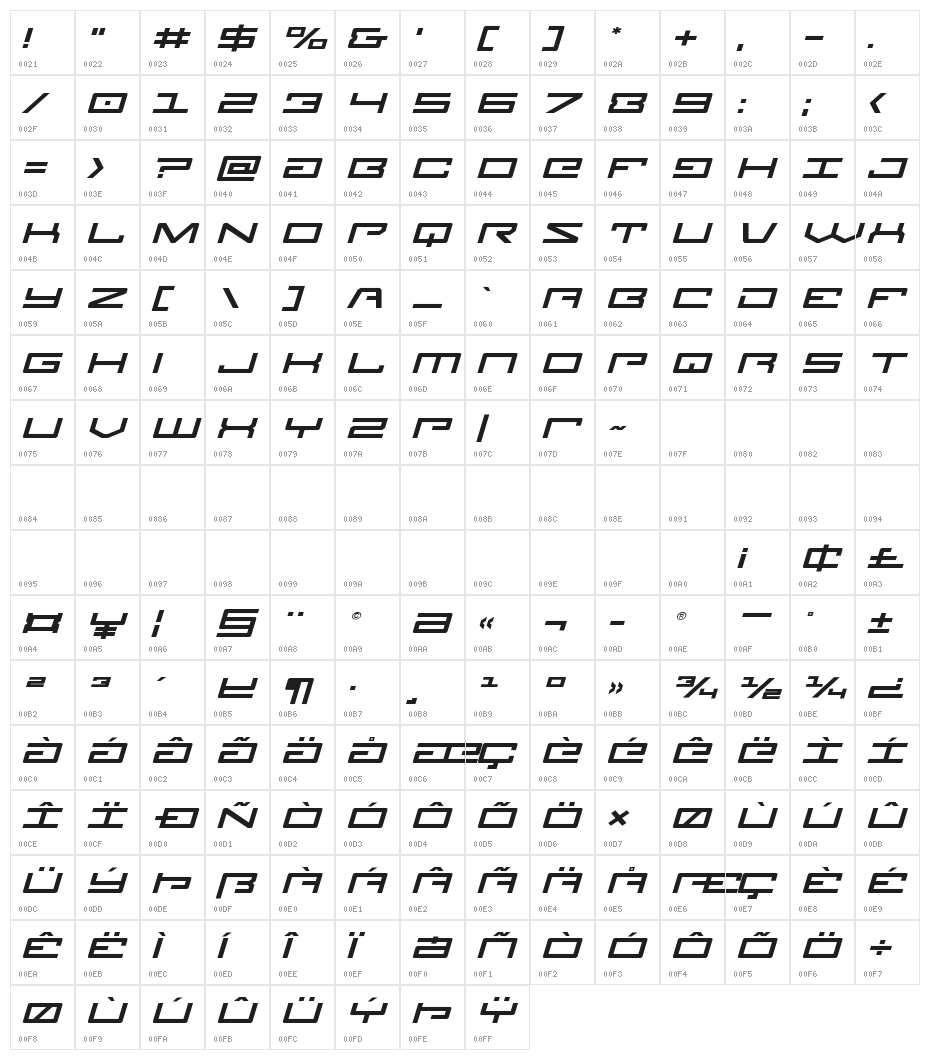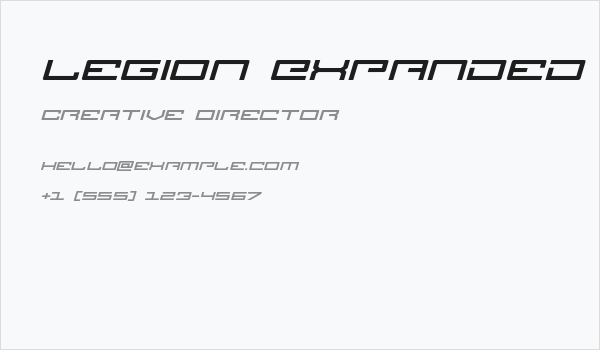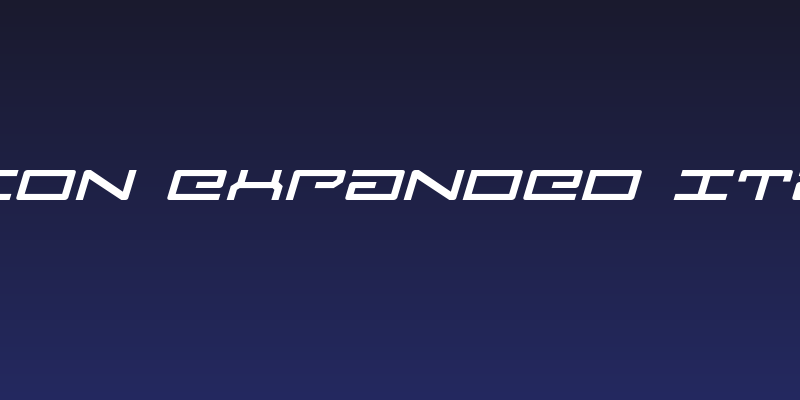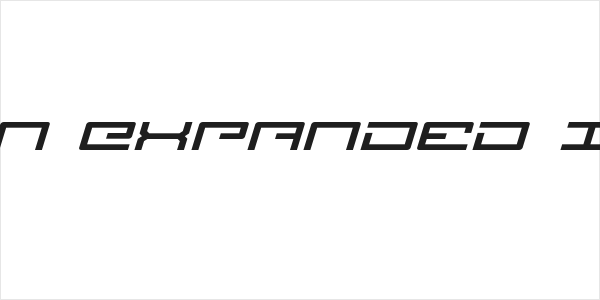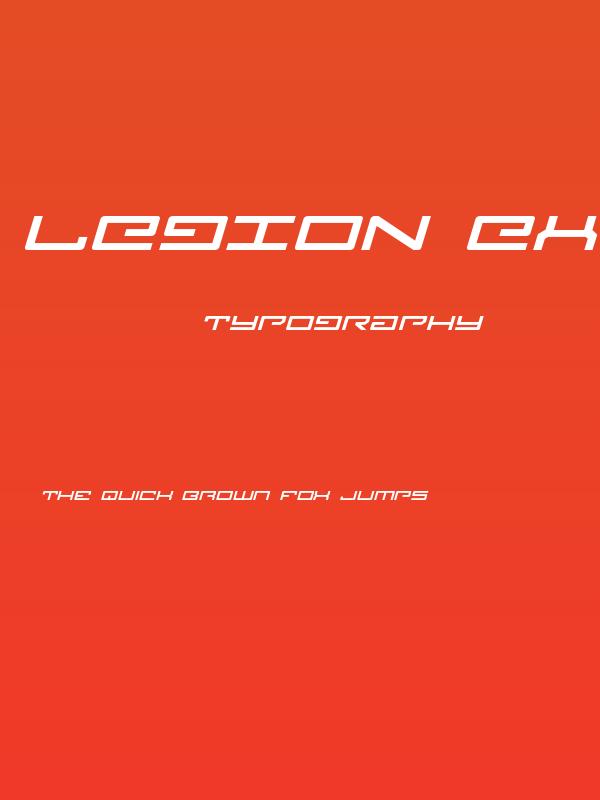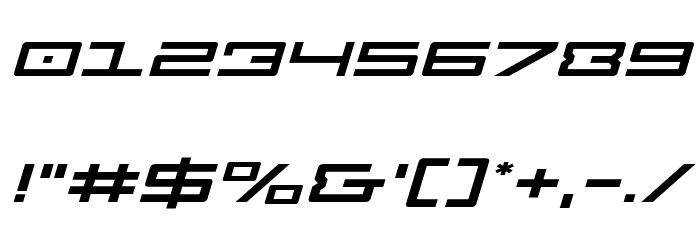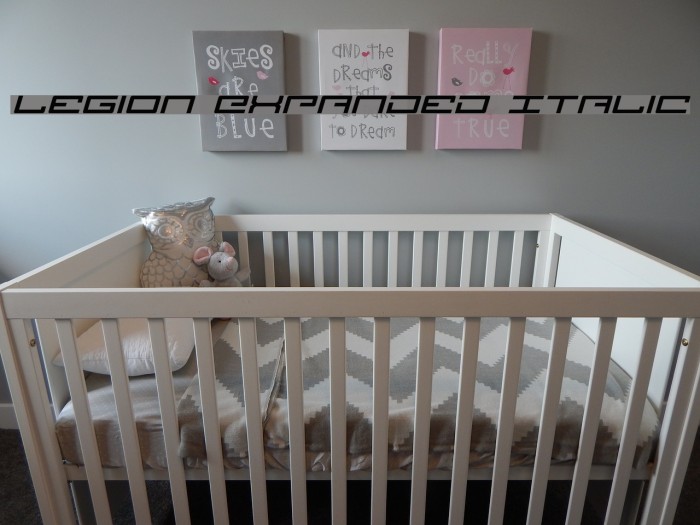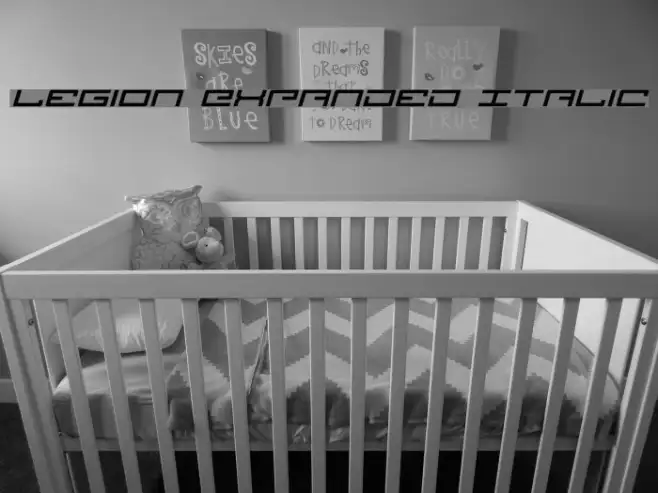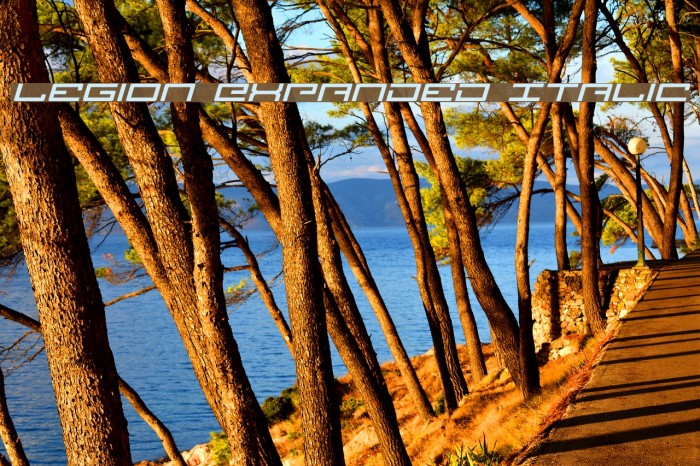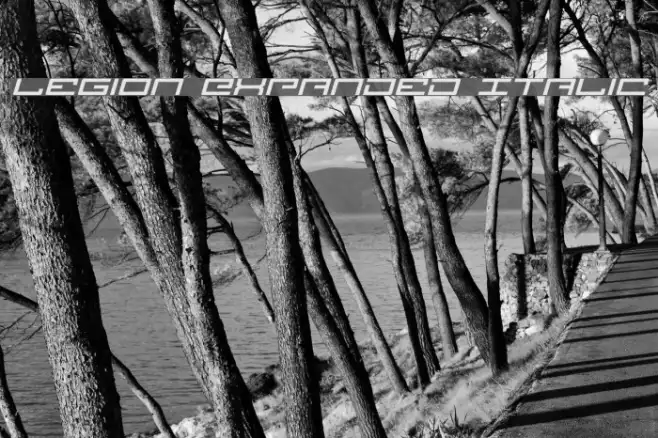
Legion Expanded Italic Font
Legion Expanded Italic Description
This font features a futuristic and dynamic design with expanded and italicized characters. The angular and geometric shapes give it a modern and tech-inspired appearance. The uppercase and lowercase letters maintain a consistent style, with sharp edges and a slight slant that enhances its sleek look. The numbers and special characters follow the same design principles, ensuring uniformity across all glyphs. This font is ideal for projects that require a bold and contemporary aesthetic, such as technology branding, sci-fi themes, or digital interfaces.
| Proposed Projects | Ideal for technology branding, sci-fi themes, digital interfaces, and modern advertising. |